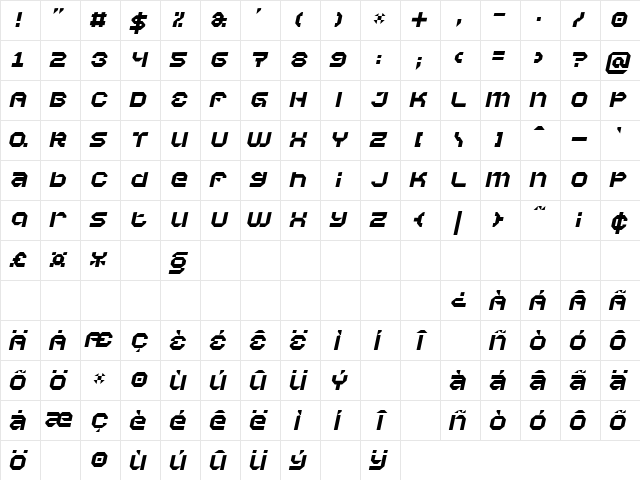
Vaporbyte Italic Free Font
Vaporbyte Italic
Complete Vaporbyte Italic glyph index. Displaying only characters natively supported by Vaporbyte Italic font.
Design Context for Vaporbyte
Vaporbyte is a composed and adaptable typeface that performs quietly and consistently across a wide range of design contexts. The slanted form adds forward momentum and visual energy.
Pro Tip: Use Vaporbyte for emphasis, pull quotes, and subheadings where its slanted energy can add rhythm to the layout.